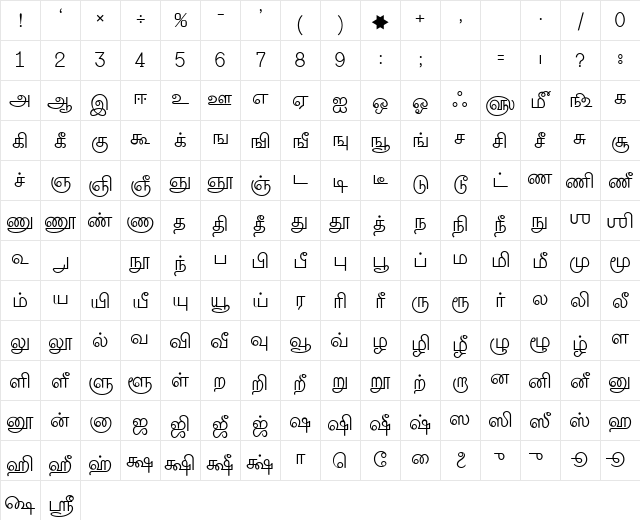
SHREE802RegularM RegularModular
Style: RegularModular
Design Context for SHREE802RegularM
SHREE802RegularM is a composed and adaptable typeface that performs quietly and consistently across a wide range of design contexts.